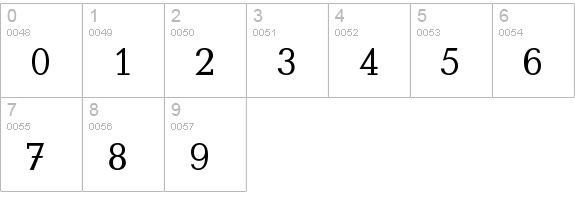
CandidaEF-Regular Font Details
CandidaEF-Regular is the standard, neutral variant in the CandidaEF typeface family \xE2\x80\x94 well suited to general body text, paragraphs, and standard typographic work.
CandidaEF-Regular is a versatile and elegant font that exudes sophistication and style. With its clean lines and timeless appeal, this typeface is perfect for a wide range of design projects, from branding to editorial work. The classic yet contemporary design of CandidaEF-Regular makes it a go-to choice for designers looking to make a statement. What sets CandidaEF-Regular apart is that it is available for free download at FontsMarket.com. This means that you can easily access and use this beautiful font in your projects without any cost. Whether you're creating a logo, designing a website, or working on a print publication, CandidaEF-Regular is sure to bring a touch of class to your work. Don't miss out on the opportunity to enhance your designs with the timeless beauty of CandidaEF-Regular. Download this font for free today and elevate your projects to new heights.